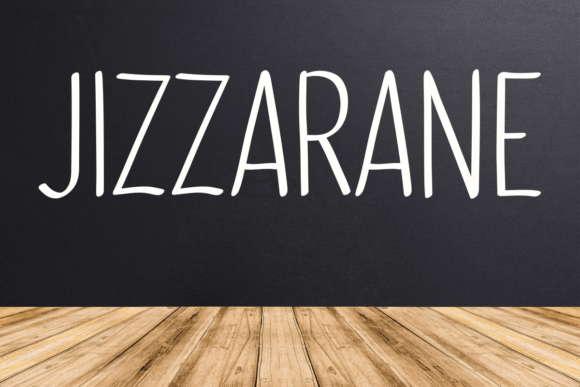
Behold, Jizzarane - the casual and easygoing handwritten sans-serif font that breathes life into your designs!
Picture this: a font so warm and inviting, it's like slipping into a cozy cardigan on a chilly day. Jizzarane's clean and curvy letterforms embrace the beauty of imperfection, creating a personal and authentic touch that captivates the eye.
Dive into a world where your logos dance with individuality, greeting cards radiate with heartfelt messages, and product packaging tells a story of authenticity. Jizzarane is the creative canvas you've been yearning for, transforming your designs into expressions of warmth and connection.
But wait, there's more! This font's versatility goes beyond first impressions. Its flexible nature allows it to effortlessly flow between body text and headlines, adding a touch of playfulness or a dash of sophistication, depending on your creative vision.
So, why settle for ordinary when you can embrace the extraordinary? Let Jizzarane be the secret ingredient that elevates your designs to new heights. With every stroke of this charming font, you'll leave an unforgettable mark on the digital landscape.
Discover the power of Jizzarane today and ignite your designs with a touch of warmth, authenticity, and limitless possibilities.